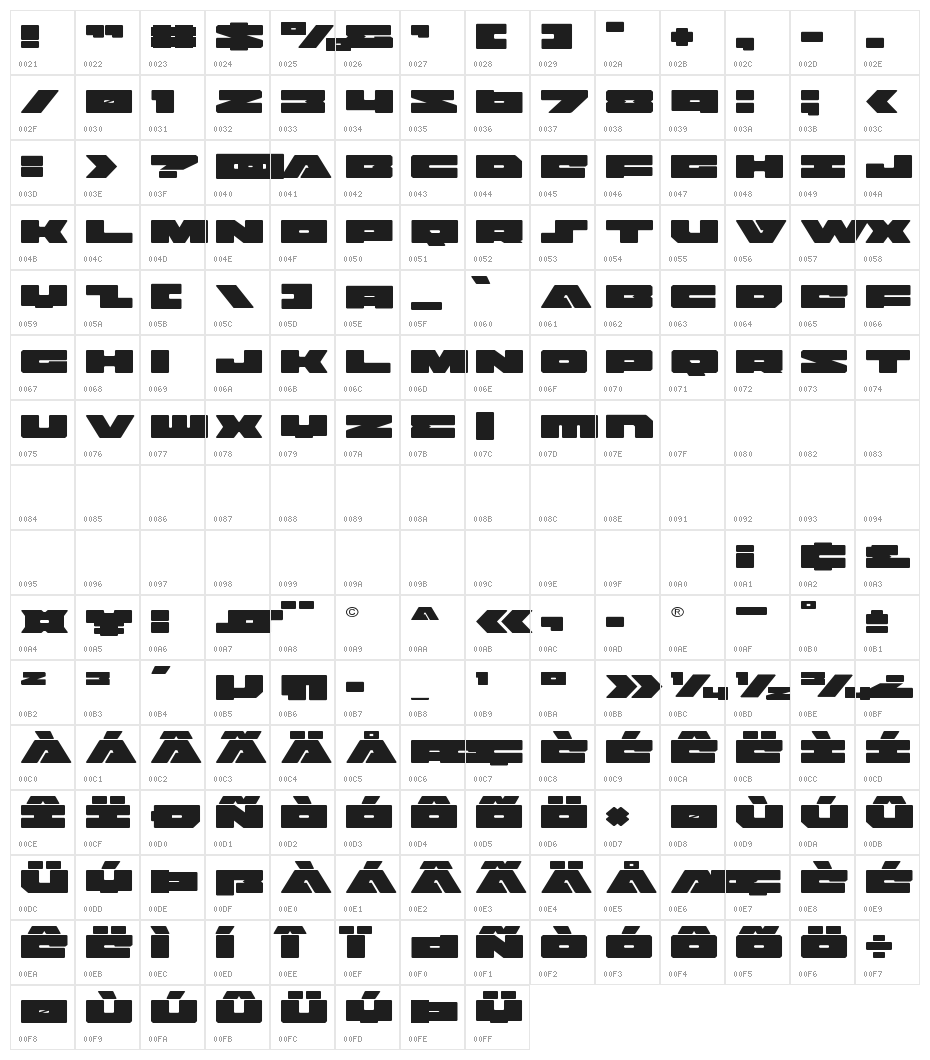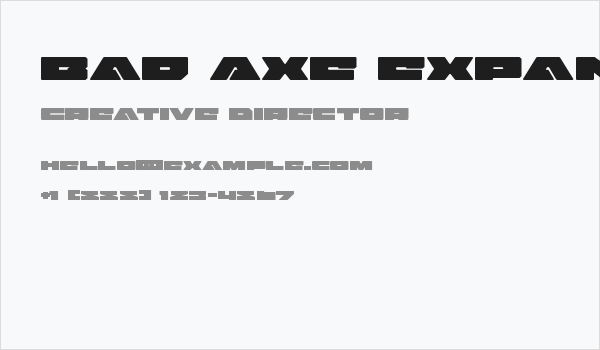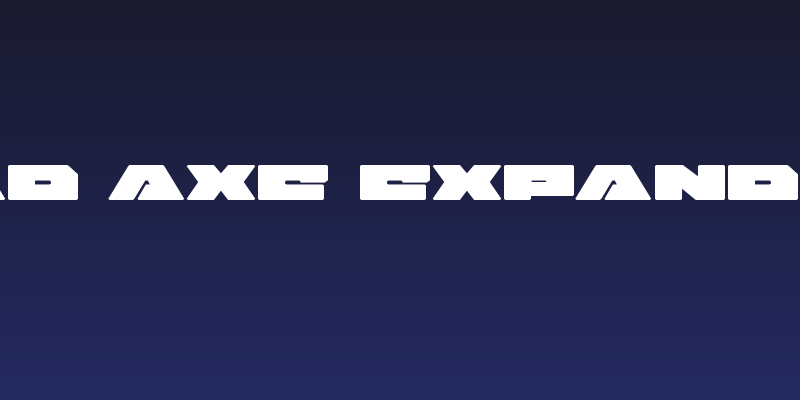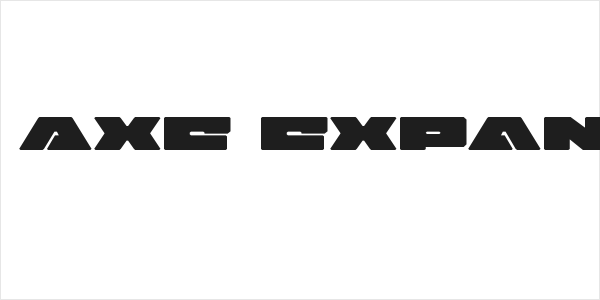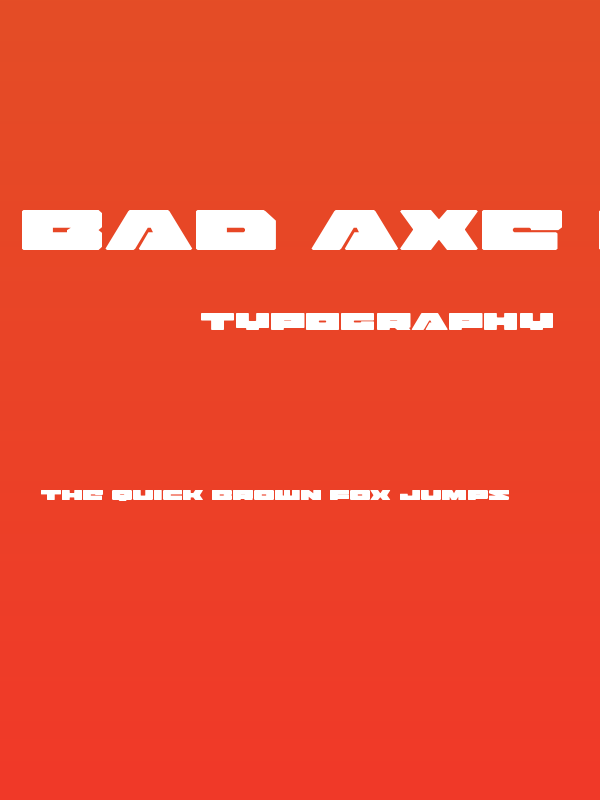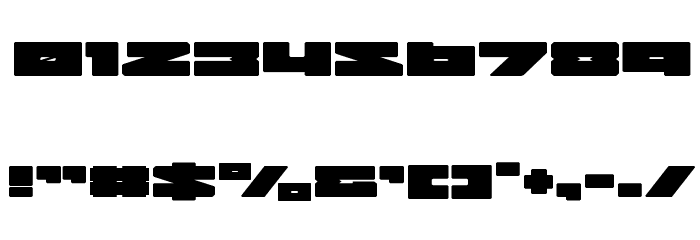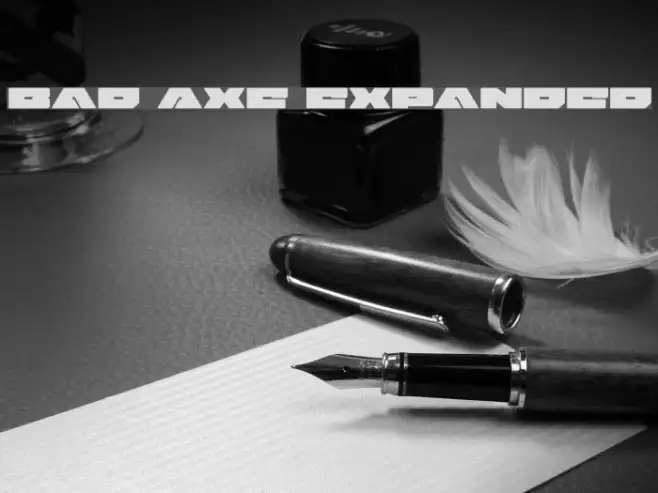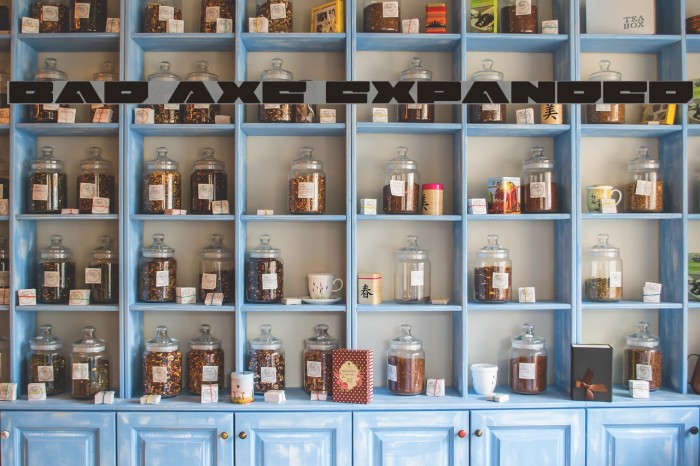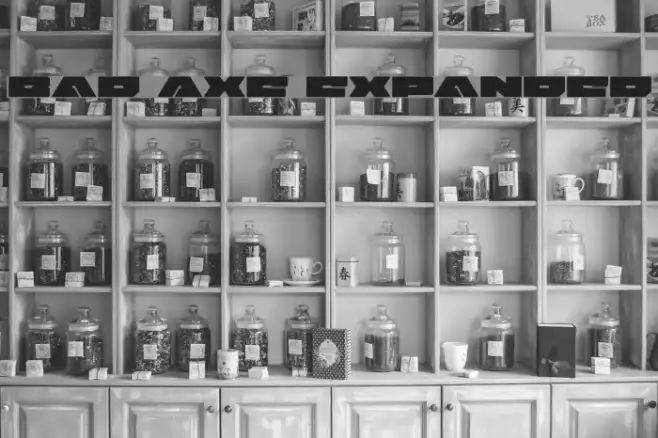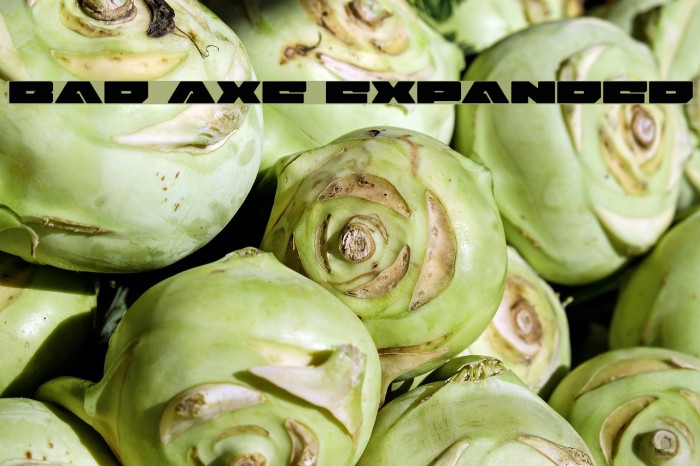
Bad Axe Expanded Font
Bad Axe Expanded Description
This font features a bold and striking design with a distinctly geometric and angular appearance. Each character is crafted with sharp edges and a blocky structure, creating a sense of strength and impact. The uppercase and lowercase letters maintain a consistent width, contributing to a uniform and cohesive look. The numbers and special characters follow the same design principles, ensuring a seamless integration across all text elements. This font's unique style makes it ideal for projects that require a modern and assertive aesthetic.
| Proposed Projects | Ideal for branding, posters, headlines, and any design requiring a strong, modern presence. |